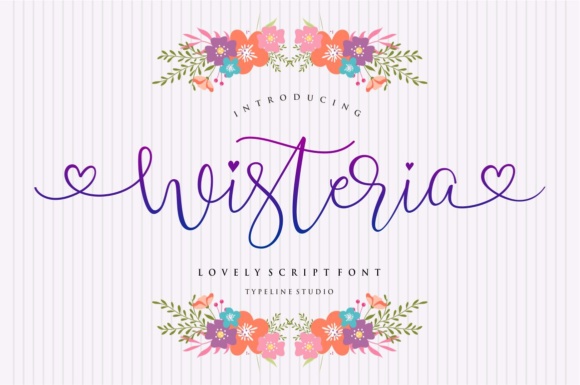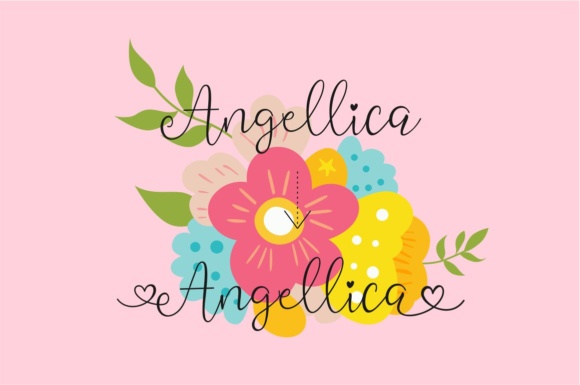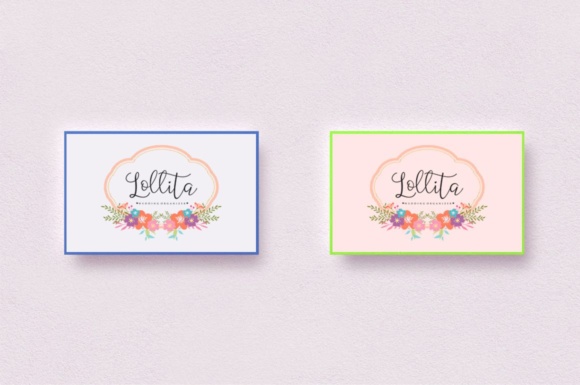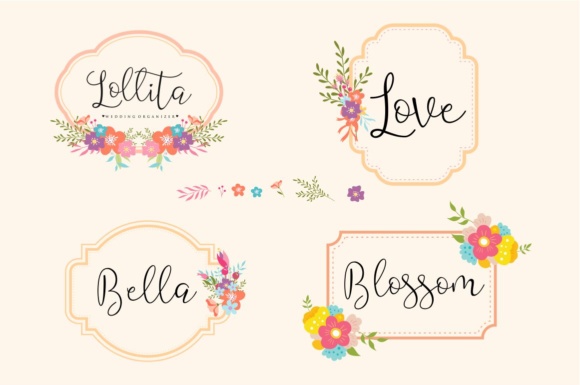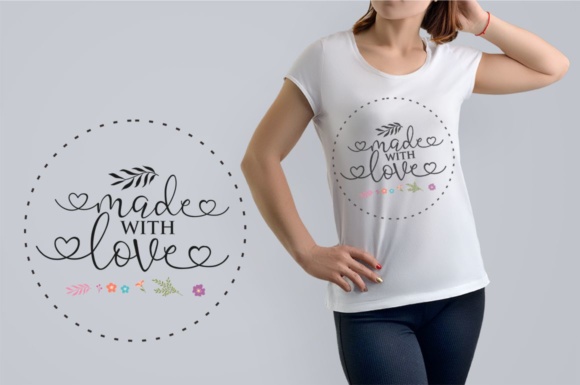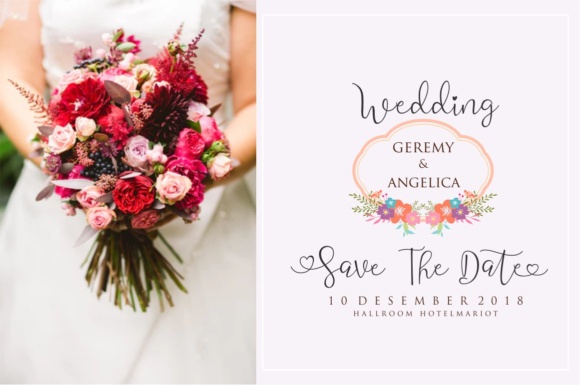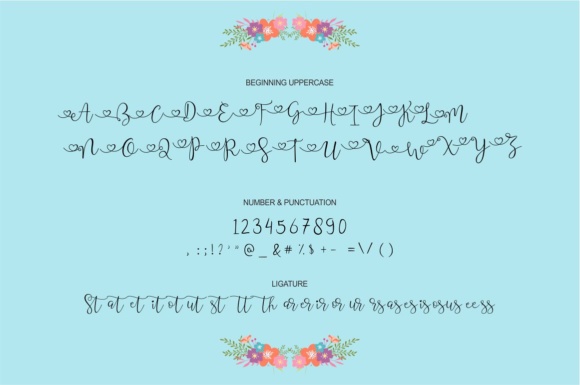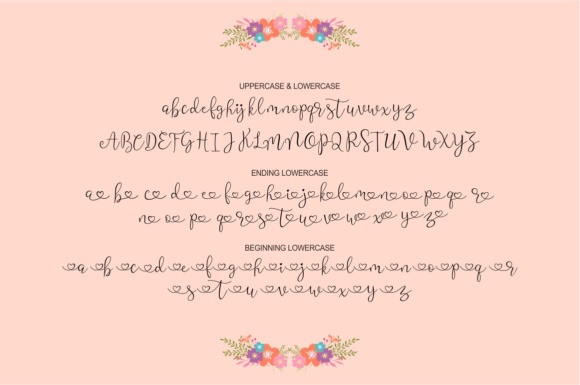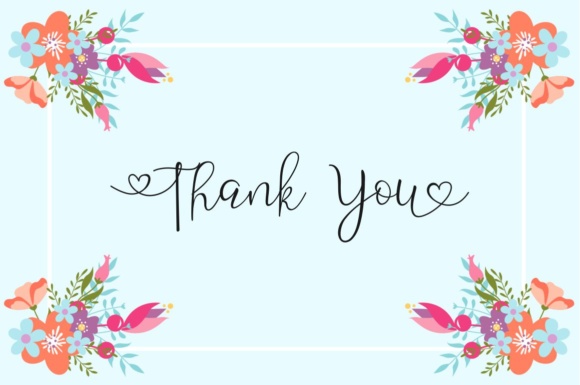
Wisteria Script Font
About Wisteria Script Font
The Wisteria is a handwritten font made with love. Its characters are beautiful and give you a decorative impression of a classic love with a modern touch. it’s clean, smooth, feminine, sensual, glamorous and very readable.
The Wisteria is perfect to be applied in various formal forms such as invitations, labels, restaurant menus, logos, fashion, makeup, stationery, novels, or any type of advertising.